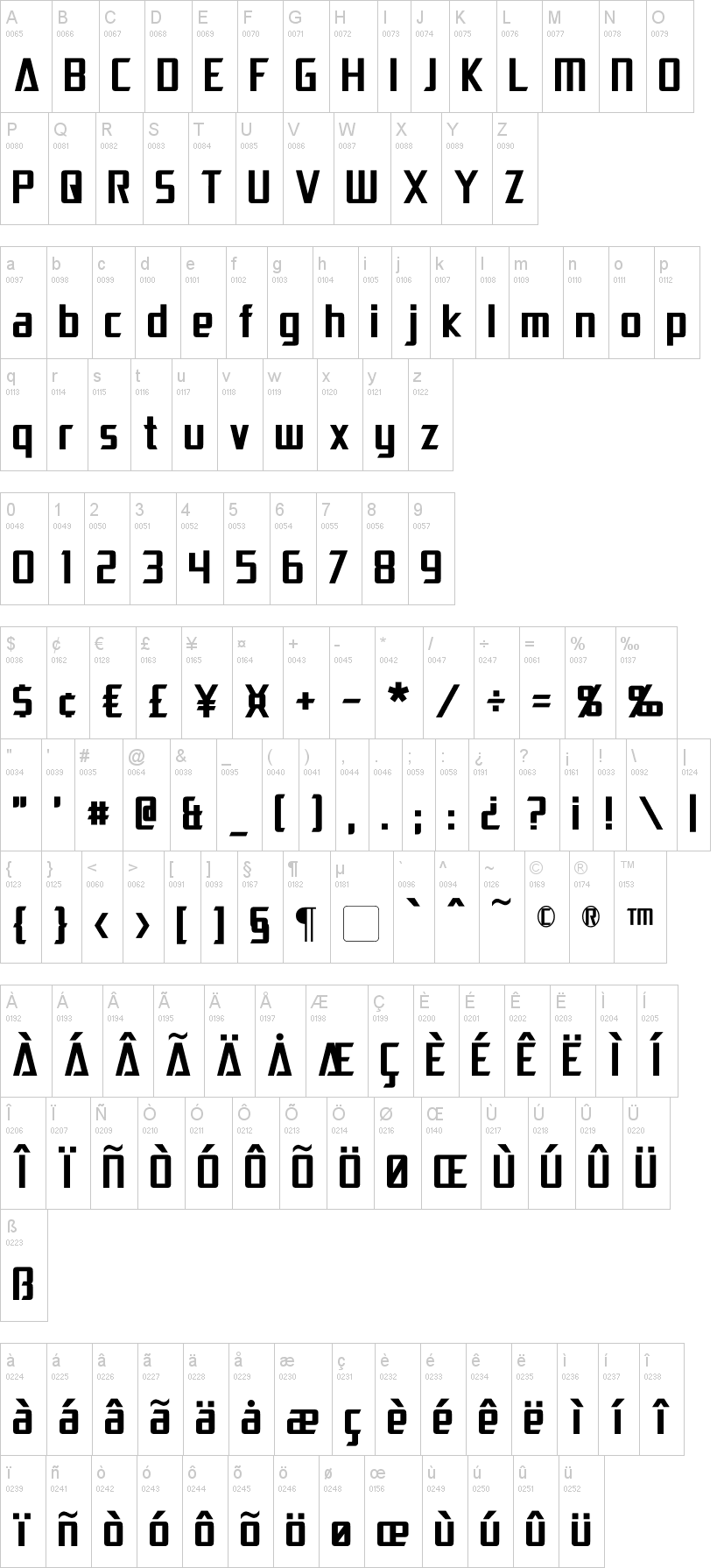
Dai-Atlas Italic.otfDai-Atlas Bold.otfDai-Atlas Bold Italic.otfNote of the authorDai-Atlas is a science-fiction themed, LCD-like font is based on the original Transformers logo from Hasbro, except thinner and leaner for ease of reading. Includes full alphabet, extended punctuation, and Euro. Includes italic and bold versions.
* Added Polish Characters
* Improved spacing and kerning issues